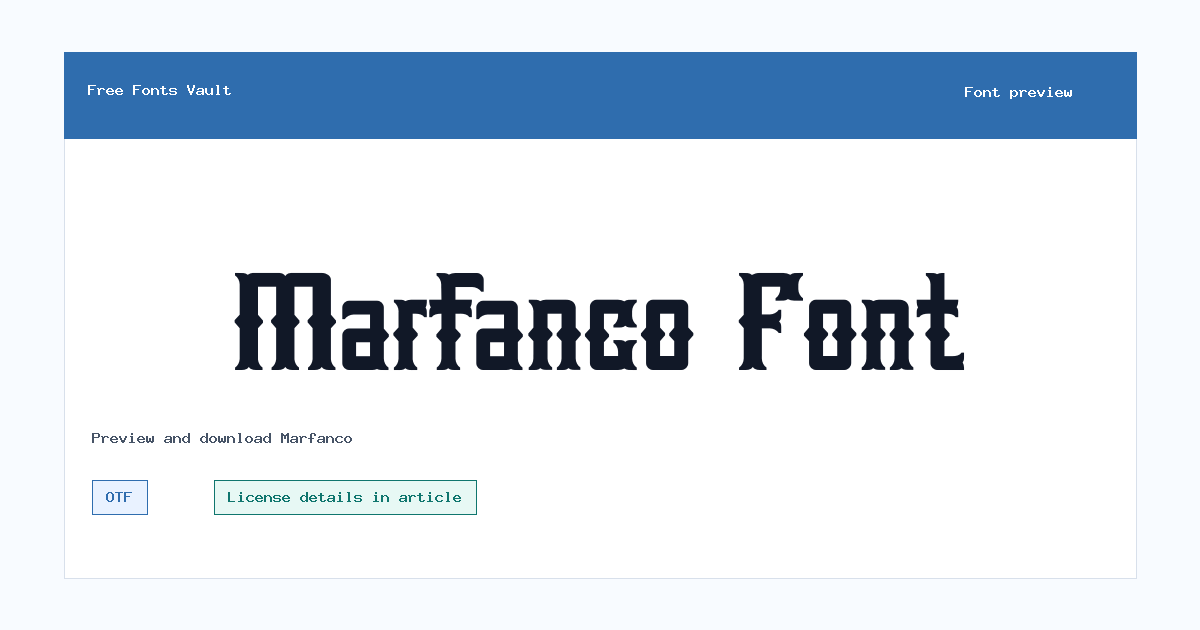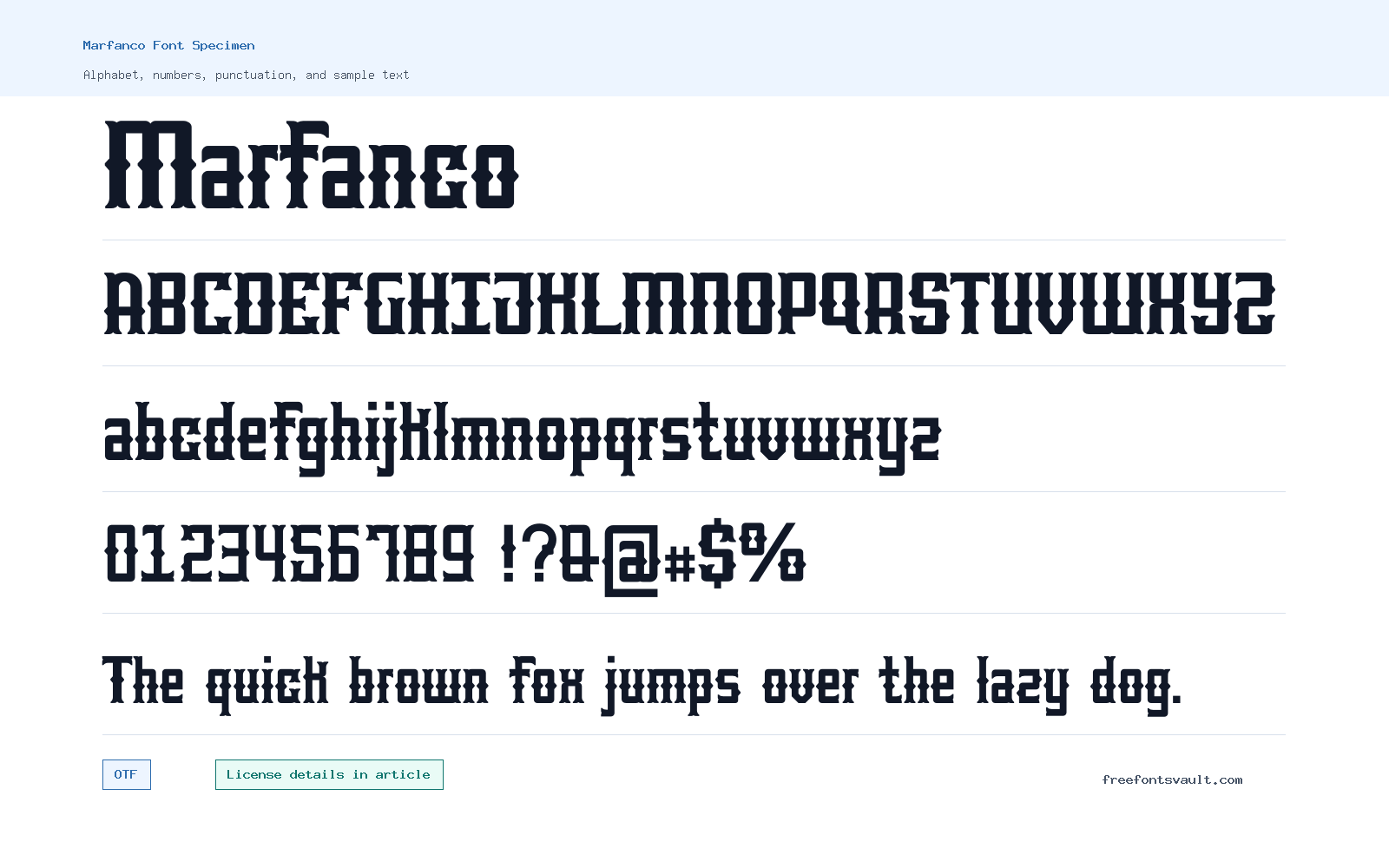
Marfanco
Marfanco font.
Marfanco is a decorative display font with a heavy, squared look and sharp cut details. It is strongest in short words, title graphics, labels, and posters where the lettering needs to grab attention quickly.
About Marfanco Font
Marfanco has compact letter shapes, slab-like strokes, and small carved details inside many characters. The uppercase letters feel especially strong, while the lowercase keeps the same sturdy structure in a tighter rhythm. In preview, the font creates a dark and punchy texture that can work well for posters, thumbnails, packaging concepts, and short title layouts.
This is a font to use deliberately. The decorative cuts give it personality, but they can also make long sentences harder to read, especially on mobile screens or busy backgrounds. Test your exact headline in the preview tool, then check whether the spacing still feels clear at the size you plan to use.
For a cleaner design, let Marfanco handle the main word or short phrase and use a simple companion font for descriptions, menus, captions, and paragraphs. That pairing keeps the display lettering strong without making the whole layout feel crowded.
- Decorative regular style with bold, blocky letterforms
- Strong uppercase presence for short titles and display text
- Best used at medium to large sizes where the carved details remain clear
- Posters, flyers, and title graphics
- Bold labels, badges, and packaging mockups
- Gaming, western-inspired, vintage, or rugged display designs
- YouTube thumbnails and social graphics
Try Marfanco with short words first. Add tracking if all-caps text feels tight, avoid long paragraphs, and keep enough contrast between the text and background. It usually works best when the font is the main display element rather than a small supporting detail.
What kind of font is Marfanco?
Marfanco is a decorative display font with heavy, squared letterforms and sharp cut details. It is best suited to short, high-impact text.
Is Marfanco good for body text?
It is not ideal for long paragraphs. The decorative structure is easier to read in short titles, names, labels, and display settings.
What should I pair with Marfanco?
Pair it with a clean sans serif or simple serif so Marfanco can handle the headline while the second font keeps longer text readable.